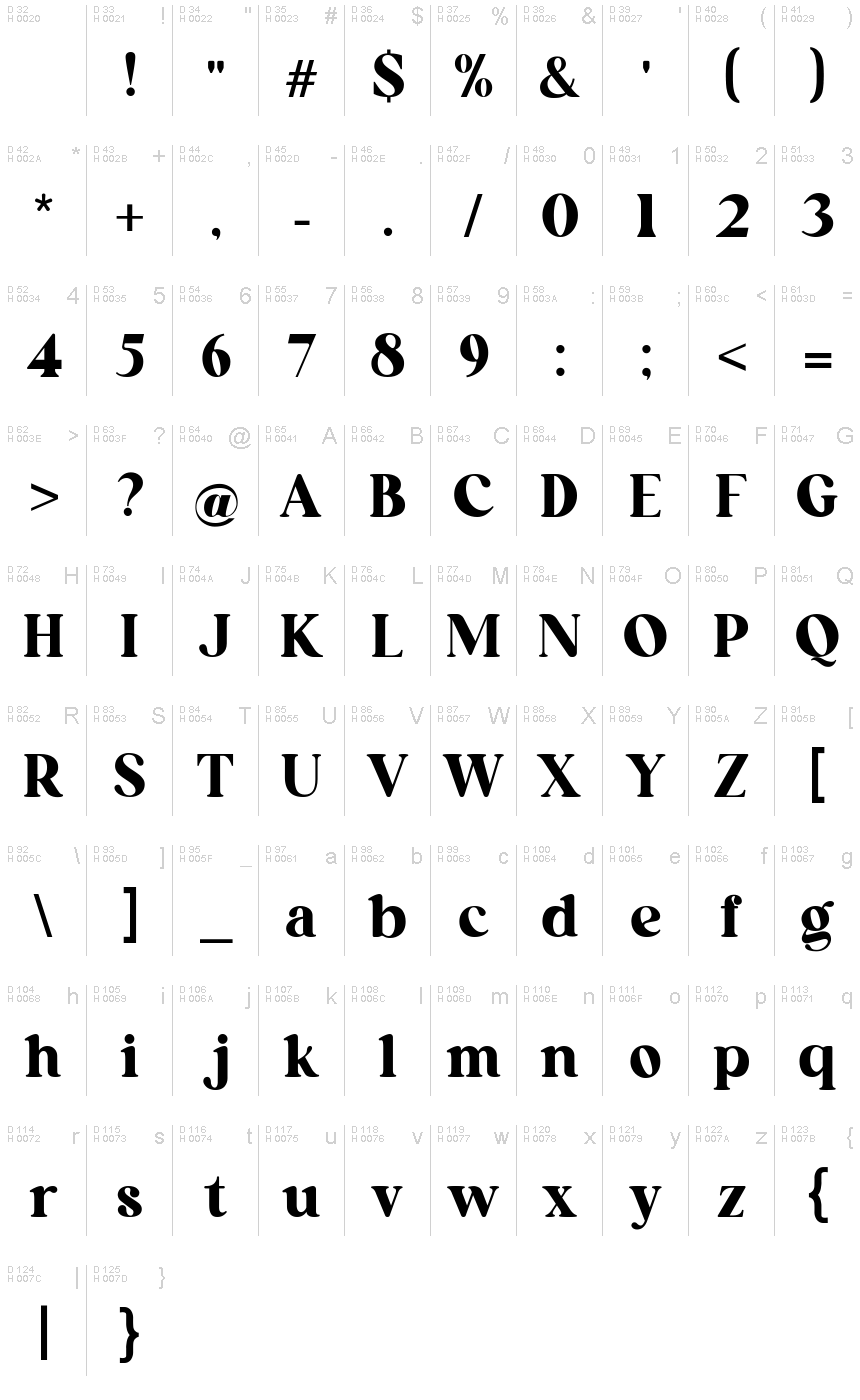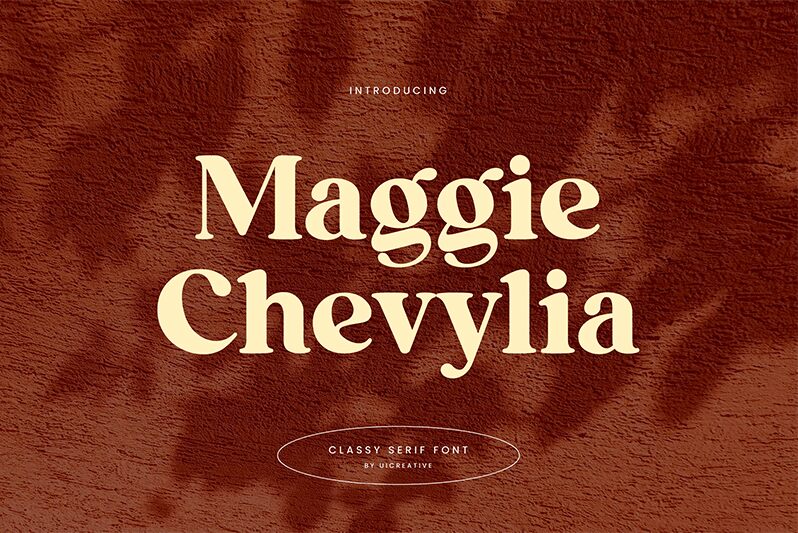
MaggieChevylia
Maggie Chevylia, crafted by UI Creative, is a striking serif font that exudes sophistication and timeless elegance. Its bold weight commands attention, making it perfect for headlines and titles that need to stand out. The meticulously designed serifs add a touch of classic charm while maintaining modern readability.
Ideal for editorial layouts, luxury branding, and artistic projects, Maggie Chevylia seamlessly merges traditional and contemporary aesthetics. This font’s distinctive character ensures your text not only communicates but also captivates. Elevate your design with the refined allure of Maggie Chevylia.